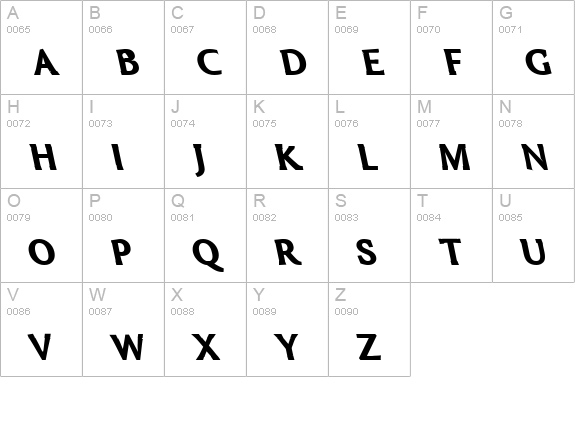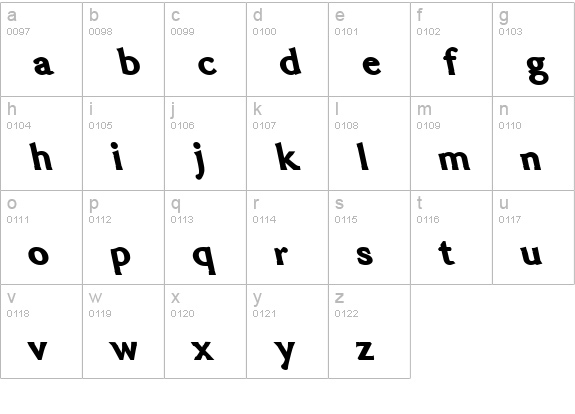
Fat Lefty Font Details
Fat Lefty font is a playful and charming typeface that exudes a unique personality with its bold and quirky design. The thick strokes and rounded edges give this font a friendly and inviting appearance, making it perfect for adding a touch of whimsy to your designs. Whether you're creating posters, greeting cards, or social media graphics, Fat Lefty font will surely make your text stand out. Best of all, Fat Lefty font is available for free download at FontsMarket.com. You can easily access this delightful font and use it in your projects without any cost. So why wait? Add a fun and creative touch to your designs with Fat Lefty font today!